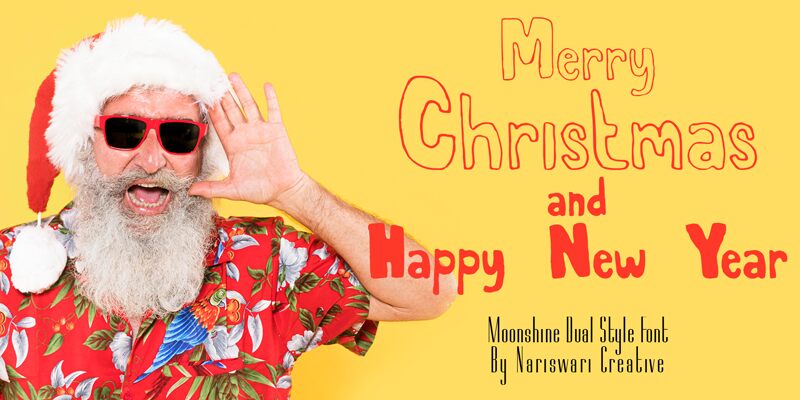
Moonshine B is a bold, semi-condensed display font that is perfect for adding a touch of fun and playfulness to any project. Designed by nariswari_creative, this cartoon-inspired font is ideal for a variety of creative projects including children's books, greeting cards, logos, and packaging designs. Its unique style and eye-catching design make it stand out from the crowd, while its semi-condensed width allows for easy legibility even at smaller sizes. Whether you're looking to create a whimsical brand identity or add some personality to your next design project, Moonshine B is sure to bring your vision to life.